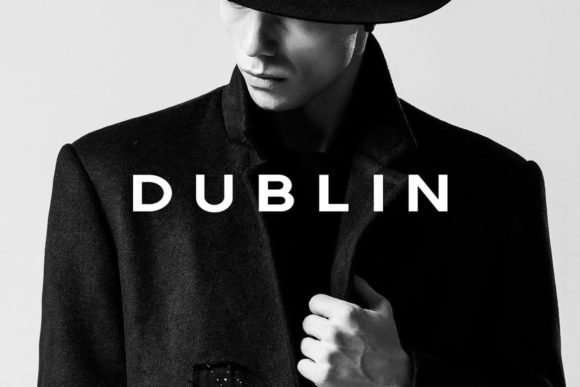
Dublin Font: Elevate Your Brand with a Modern Sans Serif
In the world of typography, fonts play a crucial role in shaping the identity of a brand. A well-designed font can make all the difference in creating a lasting impression on your audience. Introducing Dublin Font, a minimal and modern sans serif font that’s taking the design world by storm. In this article, we’ll dive into the features and benefits of Dublin Font, and explore how it can help you create outstanding logos, unique marketing graphics, branding materials, and banners that grab the attention of all your visitors.
The Rise of Sans Serif Fonts
Sans serif fonts have gained immense popularity in recent years, and for good reason. They offer a clean, minimalist aesthetic that’s perfect for modern brands looking to establish a strong visual identity. Sans serif fonts are characterized by their lack of serifs, which are the small lines or flourishes at the ends of letters. This design feature gives sans serif fonts a sleek, streamlined look that’s highly legible, even at small sizes.
Introducing Dublin Font
Dublin Font is a modern sans serif font that’s designed to help you create stunning visual content. Its minimalistic design makes it perfect for brands looking to establish a clean and sophisticated visual identity. With Dublin Font, you can create logos, marketing graphics, branding materials, and banners that stand out from the crowd and leave a lasting impression on your audience.
Key Features of Dublin Font
- Minimal and Modern Design: Dublin Font boasts a sleek and contemporary design that’s perfect for modern brands.
- Highly Legible: The font is optimized for readability, making it perfect for use in a variety of applications, from logos to body text.
- Versatile: Dublin Font is suitable for a wide range of design projects, including logos, marketing graphics, branding materials, and banners.
Benefits of Using Dublin Font
So, why should you choose Dublin Font for your design projects? Here are just a few benefits of using this versatile font:
1. Enhance Your Brand’s Visual Identity
Dublin Font can help you create a strong and consistent visual identity for your brand. Its modern design and clean aesthetic make it perfect for brands looking to establish a professional and sophisticated image.
2. Increase Legibility
Dublin Font is optimized for readability, making it perfect for use in a variety of applications, from logos to body text. This ensures that your message is communicated clearly and effectively to your audience.
3. Stand Out from the Crowd
With Dublin Font, you can create visual content that stands out from the crowd. Its unique design and modern aesthetic make it perfect for brands looking to establish a distinctive visual identity.
Design Tips and Tricks
Here are some design tips and tricks to help you get the most out of Dublin Font:
1. Use Dublin Font as a Headline Font
Dublin Font is perfect for use as a headline font. Its bold and modern design makes it perfect for grabbing the attention of your audience.
2. Experiment with Font Sizes and Colors
Don’t be afraid to experiment with different font sizes and colors. This can help you create visual interest and hierarchy in your design.
3. Pair Dublin Font with Other Fonts
Dublin Font can be paired with other fonts to create a unique and visually appealing design. Experiment with different font combinations to find the one that works best for your project.
Dublin Font is a versatile and modern sans serif font that’s perfect for brands looking to establish a strong visual identity. With its clean and minimalist design, Dublin Font can help you create outstanding logos, unique marketing graphics, branding materials, and banners that grab the attention of all your visitors. Whether you’re a designer or a business owner, Dublin Font is a great choice for any design project.